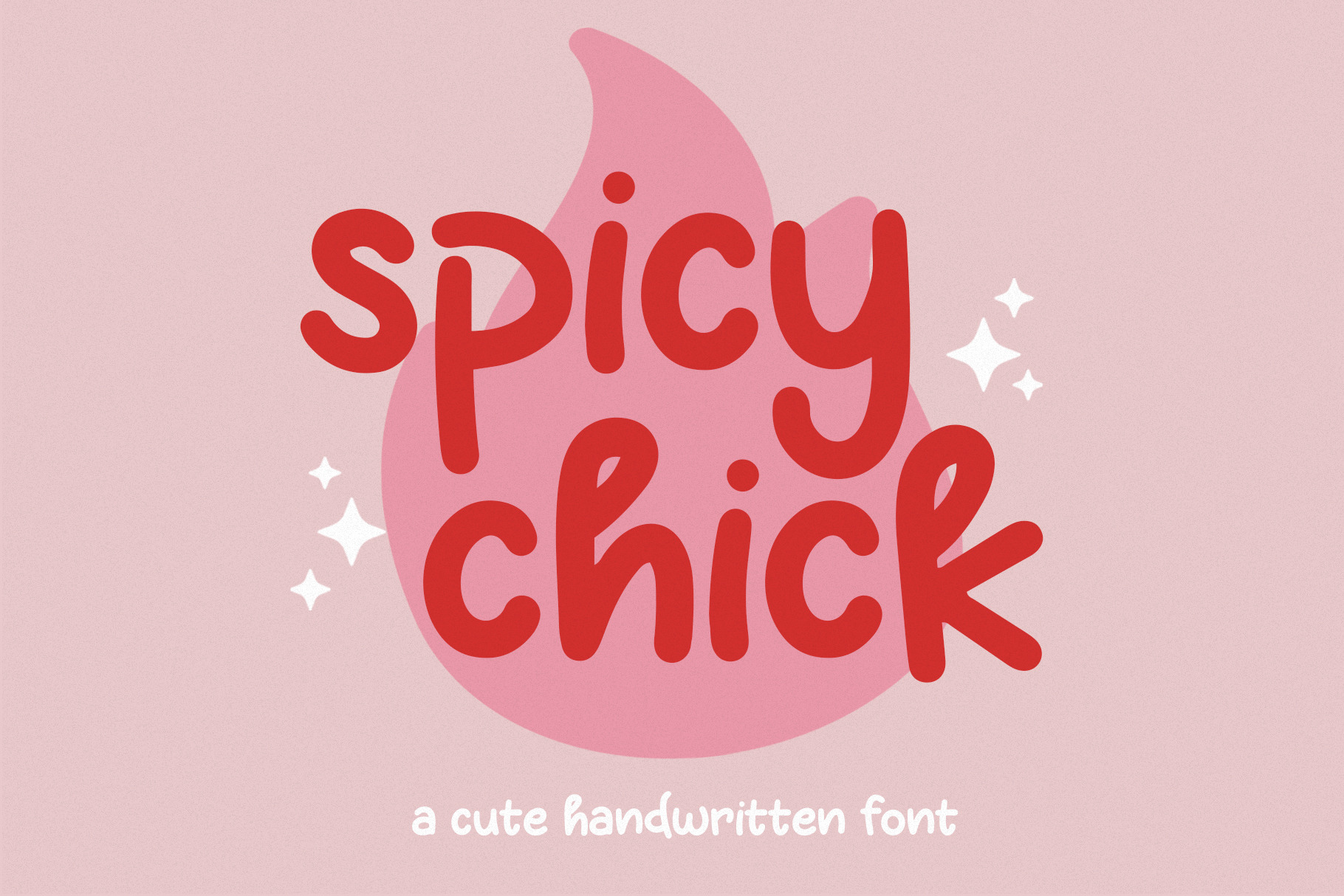
Spicy Chicks - Handwritten Font
Spicy Chicks is a lively and engaging font that seamlessly blends a fun and playful demeanor with the elegance of a monoline handwriting typeface. Its distinctive style adds a touch of whimsy to any design, making it ideal for eye-catching headlines, creative branding, or dynamic display purposes. The fluid strokes and uniform lines contribute to its cohesive monoline appearance, while the handwritten charm introduces a personal and approachable feel.
Whether used for invitations, posters, or logo designs, Spicy Chicks inject a sense of vibrancy and character into your visual creations, ensuring a memorable and delightful typographic experience. This typeface is available in SVG format, compatible with advanced tools such as Cricut and Glowforge, and for use in Procreate.